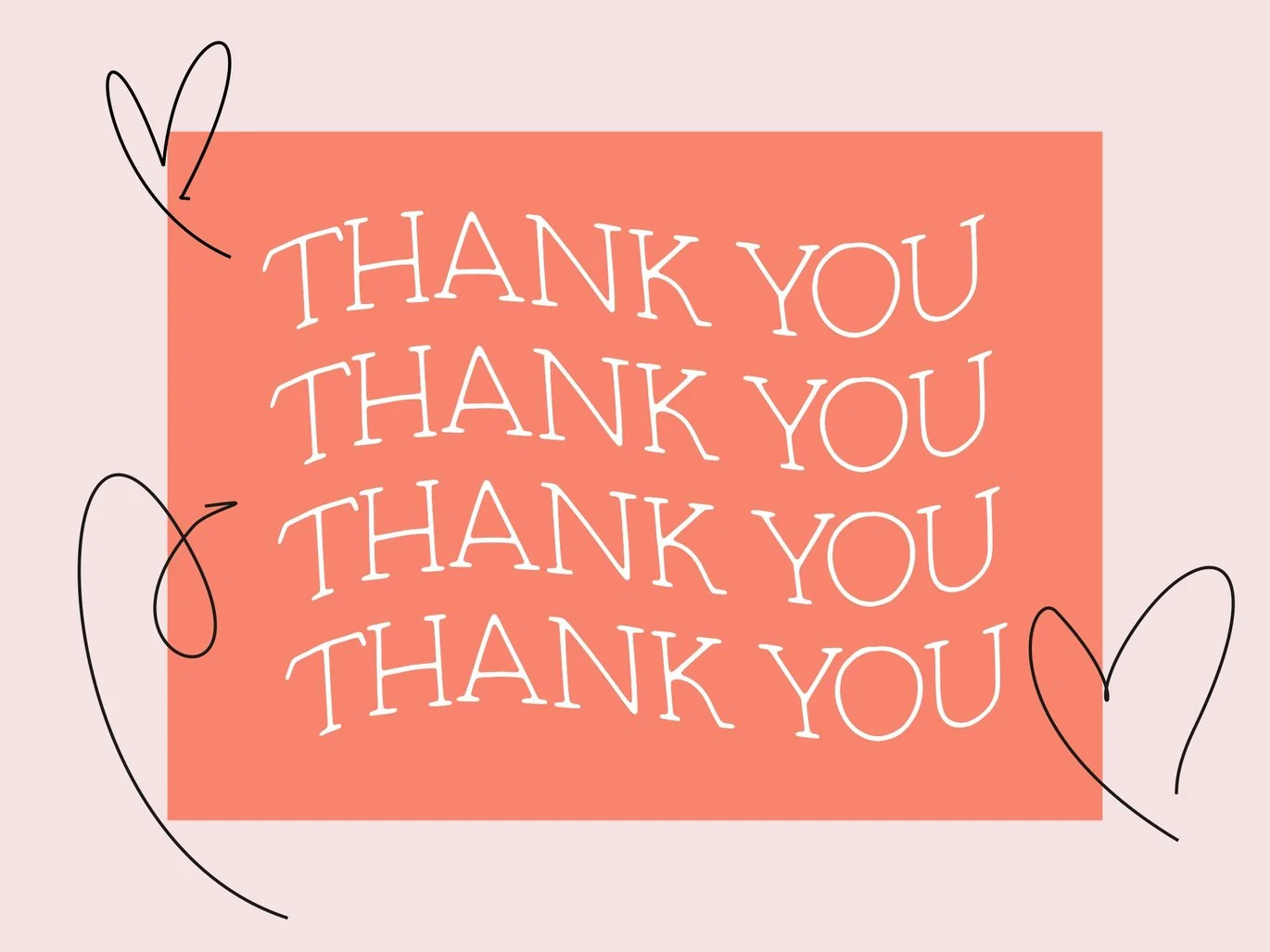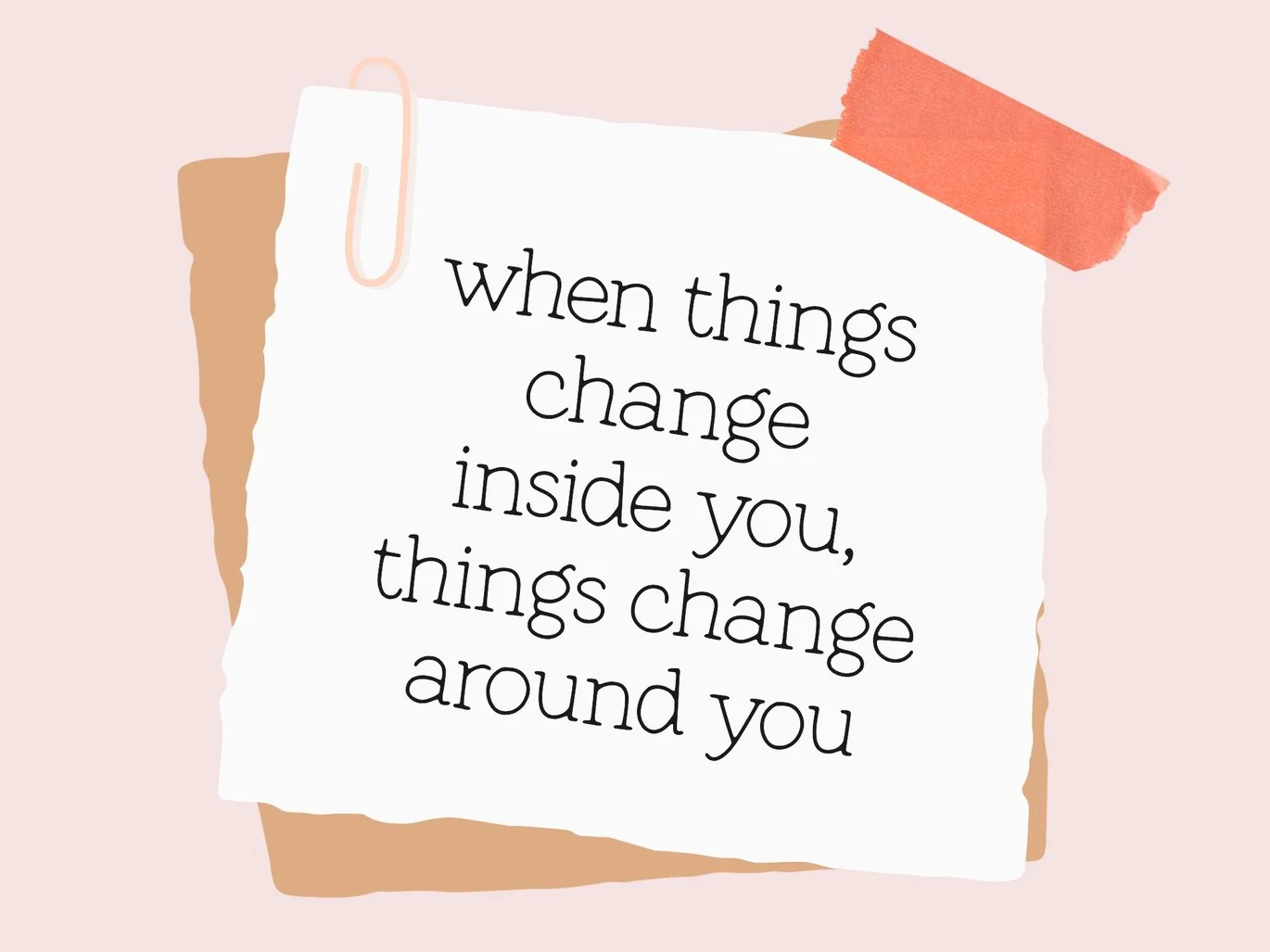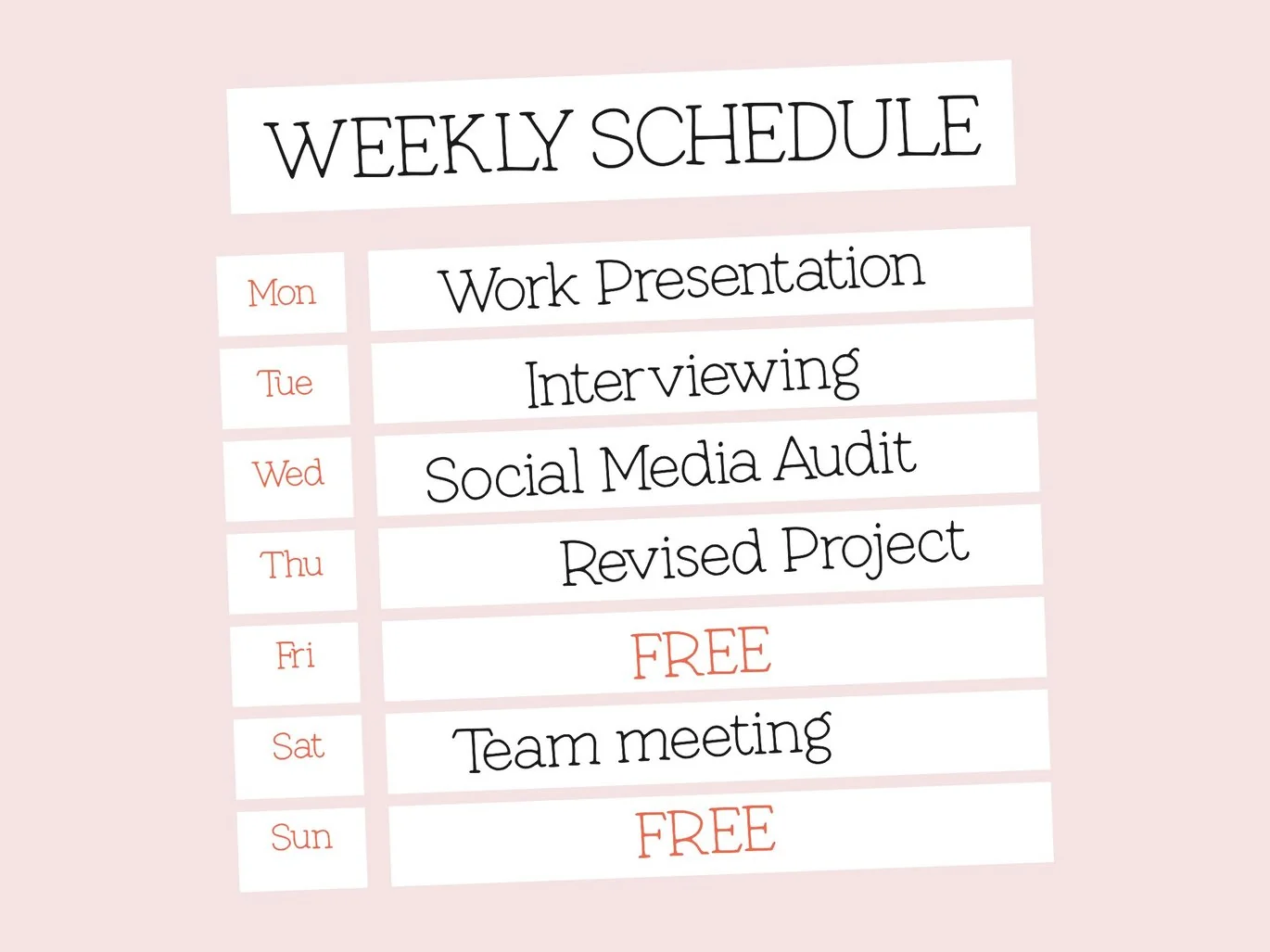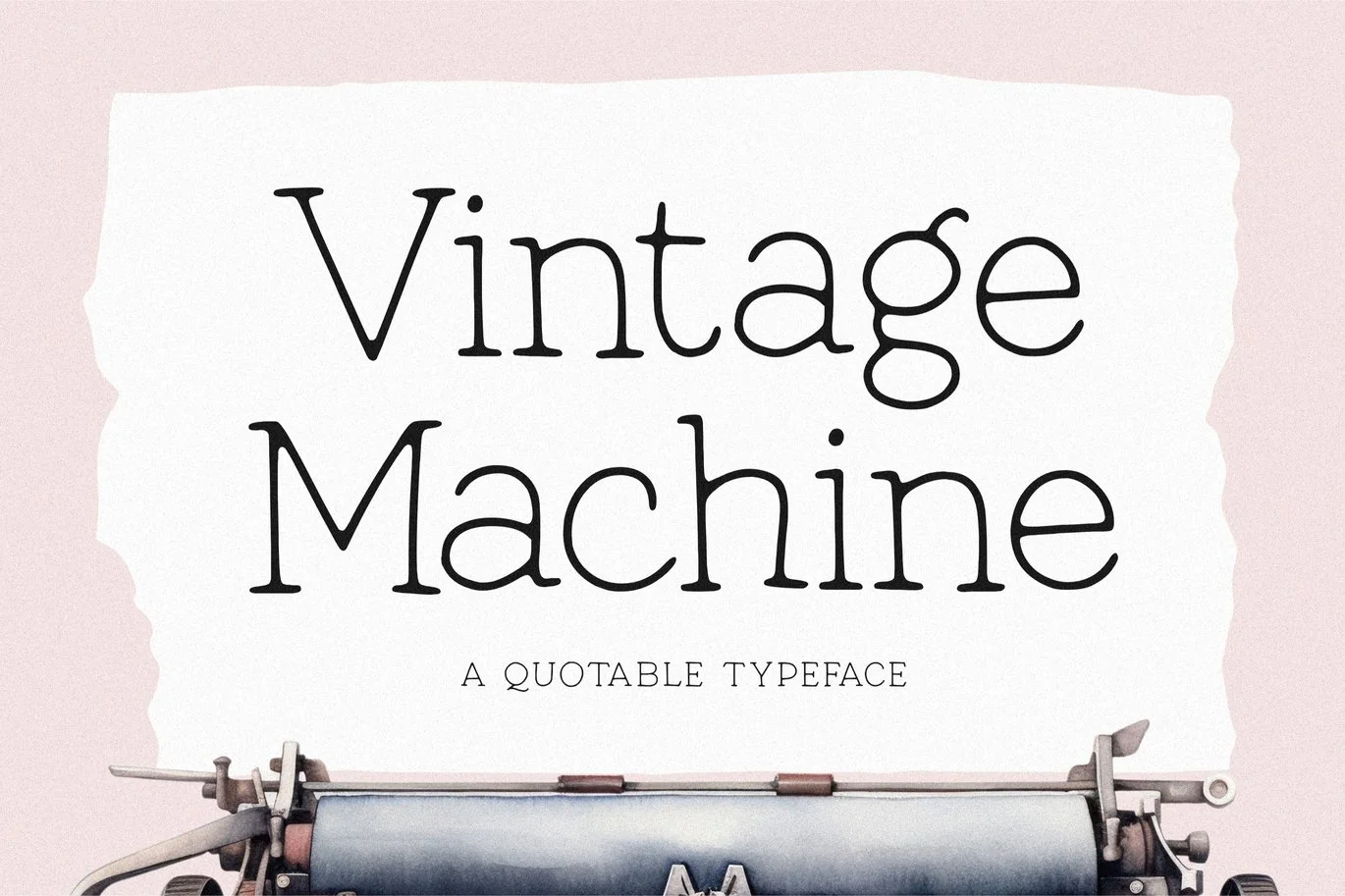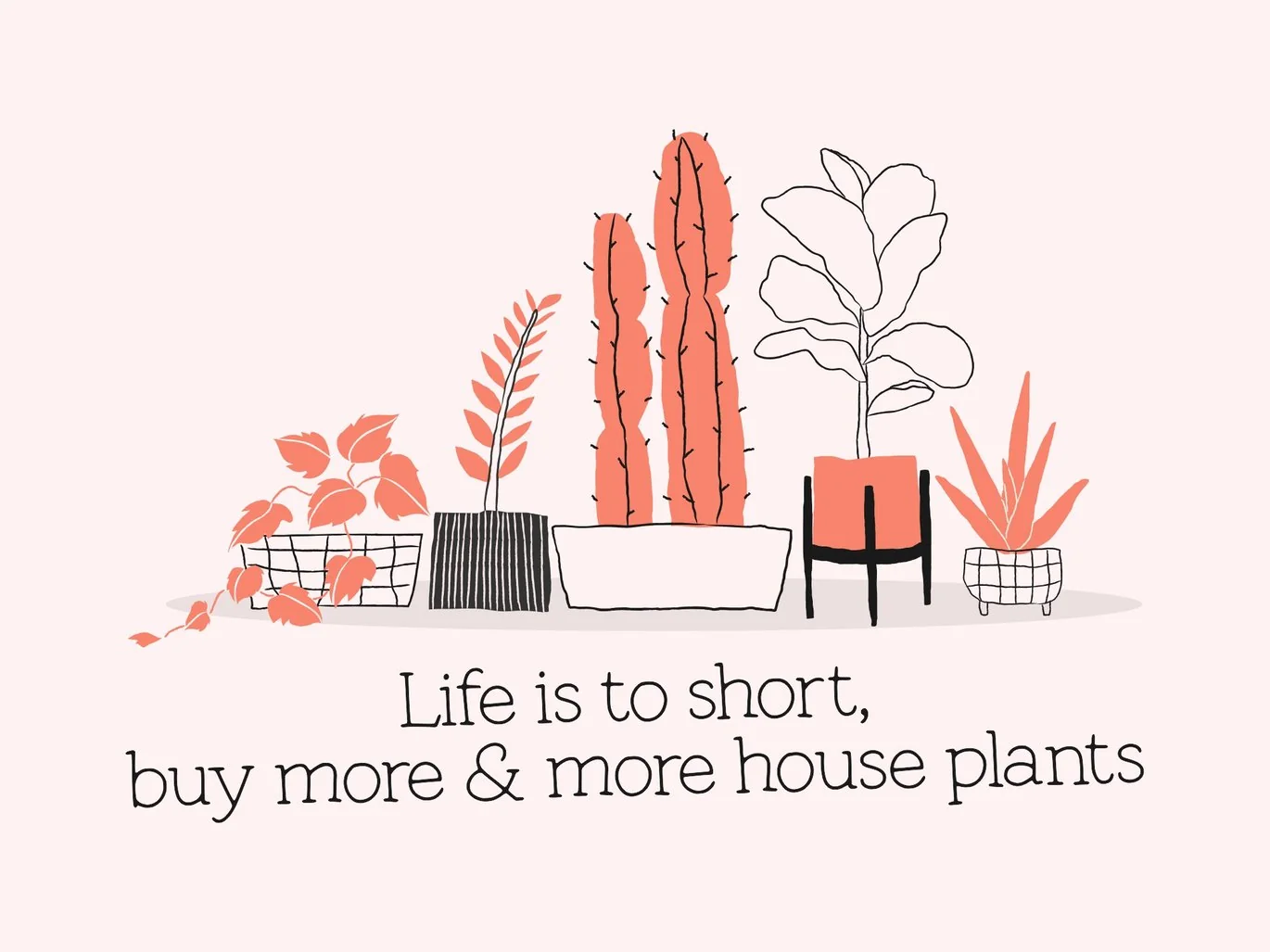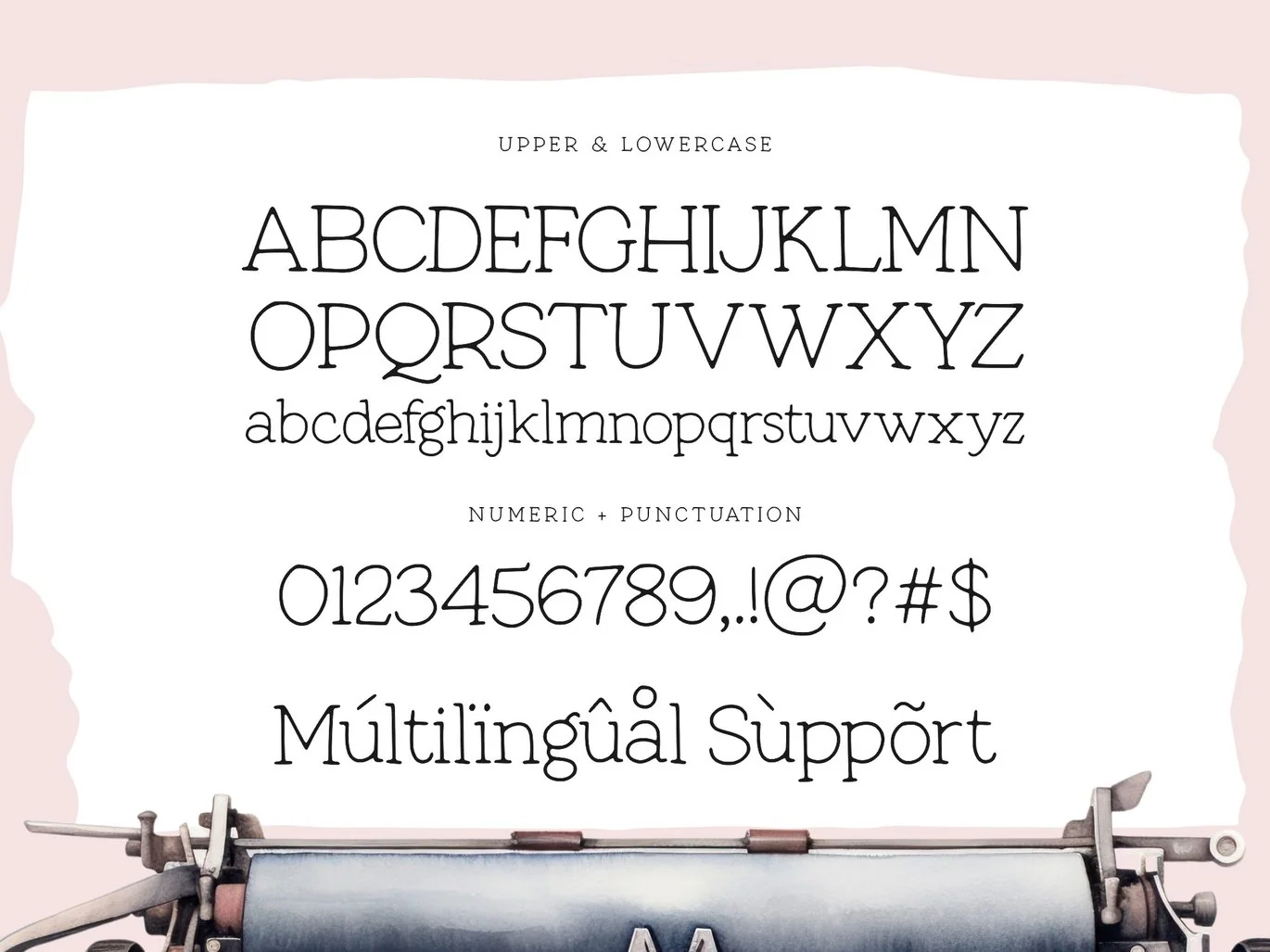
Vintage Machine – Typewritter Typeface Logo Font
Vintage Machine is a Typewritter Typeface Font.
This font captures the essence of vintage typewriters, with a distinct and easily recognizable aesthetic.
This font is perfect for projects that require a vintage touch, such as vintage-inspired branding, editorial designs, and book covers. Embrace the nostalgia of analog writing with our typewriter fonts, a tribute to the timeless art of typography.
- also multilingual support